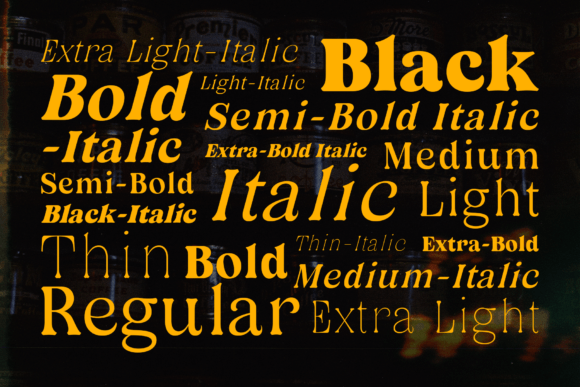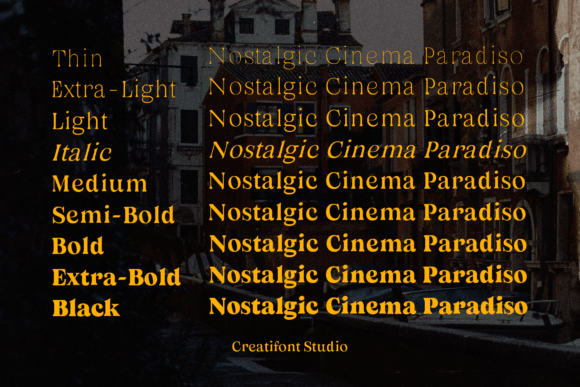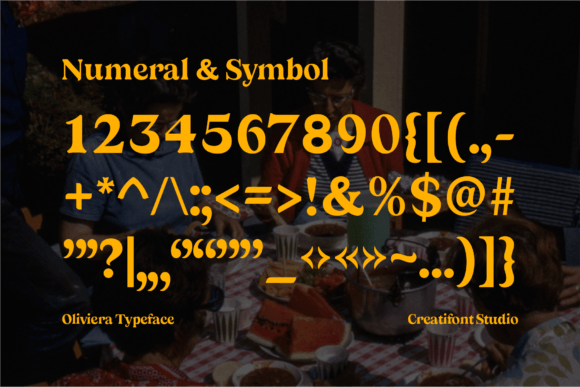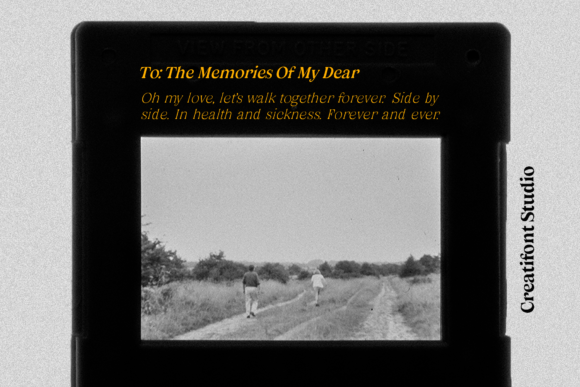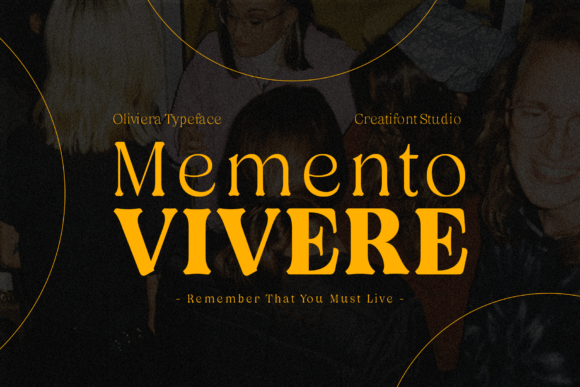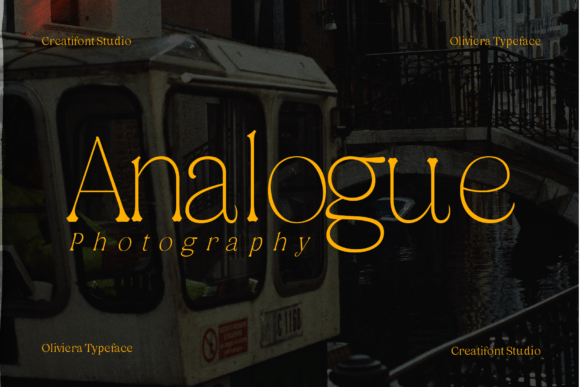
Introduction to Oliviera Font Font
Fonts play a crucial role in design, and the Oliviera Font font is a typeface that brings both character and versatility to any project. Whether you’re working on a branding project, a website, or a print design, the Oliviera Font font offers a unique style that can elevate your work.
Oliviera – is a humanist serif family with rounded corners and delicate curves.
It has a sophisticated and vintage look, making it perfect for branding, logos, and editorial design The rounded corners and edges give Oliviera a soft and friendly feel.
Key Features of Oliviera Font Font
Why Choose Oliviera Font Font?
The Oliviera Font font is more than just a typeface – it’s a design tool that helps you communicate your message with style and clarity. Its unique character set and versatile design make it suitable for a wide range of applications, from elegant invitations to bold headlines.
With its carefully crafted letterforms and balanced proportions, the Oliviera Font font ensures readability and visual appeal across all mediums.
What makes Oliviera Font font special?
The Oliviera Font font stands out with its unique design, exceptional readability, and versatility across various design applications.